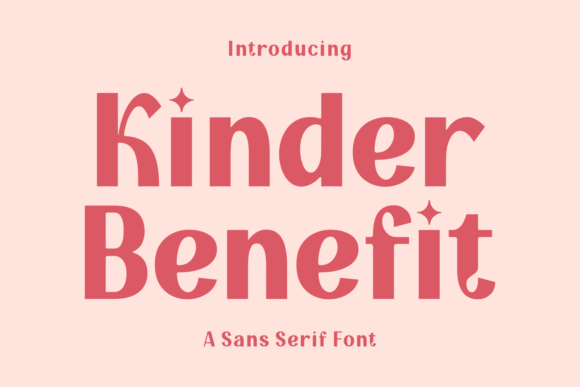
The Perfect Match for Your Next Creative Project
Remember the thrill of designing a new children’s book or creating a social media campaign for a beloved toy brand? It’s a moment of pure joy, where imagination knows no bounds, and the possibilities are endless. For designers who love bringing smiles to kids’ faces and charm to their clients, there’s a font that’s sure to become a trusted companion: the Kinder Benefit Font.
This playful and modern sans serif font is designed to delight both kids and adults alike. Its rounded edges and whimsical design elements, like decorative stars, give it a warm and approachable personality. Whether you’re working on a fun project or a professional branding initiative, the Kinder Benefit Font is a valuable addition to your design toolkit, combining readability with charm and making it suitable for a wide range of design needs.
Kinder Benefit Font Key Features
- Unique Characteristics: Kinder Benefit Font features a playful, childlike feel with rounded edges and smooth lines, making it ideal for children’s educational materials and kid-friendly designs.
Kinder Benefit Font Review
Overall, Kinder Benefit Font is a decent addition to any design library. ✨ One of the standout features is its versatility, making it suitable for a wide range of applications, from children’s educational materials to corporate branding. ✨ The font’s playful, yet elegant design is both modern and timeless, allowing it to adapt to various styles and themes.
Another strength of Kinder Benefit Font is its readability, particularly in digital formats. ✨ The font’s clear and open design ensures that text remains easily legible, even at smaller sizes. Additionally, the font’s bold and italic styles offer a nice contrast, making it easier to emphasize important information.
Limits and Considerations
While Kinder Benefit Font is a solid choice, there are some limitations to consider: ⚠️ The font may not be ideal for formal or professional applications, as its playful design may come across as too casual. ⚠️ Furthermore, the font’s limited character set and support for certain languages may be a concern for designers working on international projects.
Conclusion
In conclusion, Kinder Benefit Font is a reliable and versatile choice for designers looking for a friendly and approachable font. While it may not be suitable for all projects, its strengths in readability and adaptability make it a great option for educational, corporate, or creative endeavors.
- Playful, yet elegant design
- Highly readable in digital formats
- Bold and italic styles for emphasis
- Supports a wide range of applications
- May not be suitable for formal or professional applications
- Limited character set and language support
Tips for Getting the Most Out of Kinder Benefit Font
To get the most out of Kinder Benefit Font, consider the following tips:
- Use it for titles, headings, and other emphasis text to create visual interest.
- Pair it with a clean and simple background to let the font shine.
Kinder Benefit Font is commonly used for:
- Children’s book illustrations and design.
- Education and learning materials.
What is the recommended font size and line height for Kinder Benefit Font?
The recommended font size for Kinder Benefit Font is between 12pt and 18pt, depending on the intended use and display context. For body text, a font size of 14pt is a good starting point. The recommended line height is 1.2 to 1.5 times the font size. This will provide optimal readability and balance in your designs.